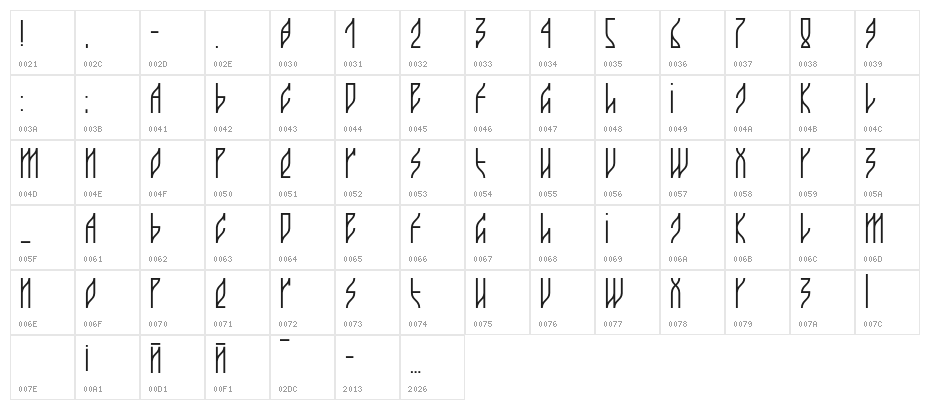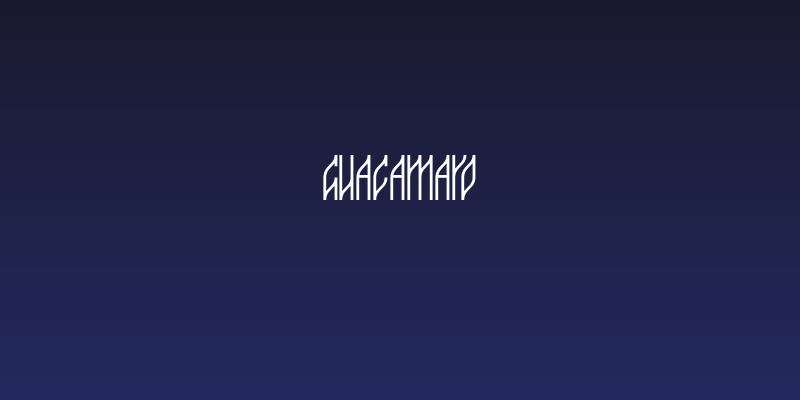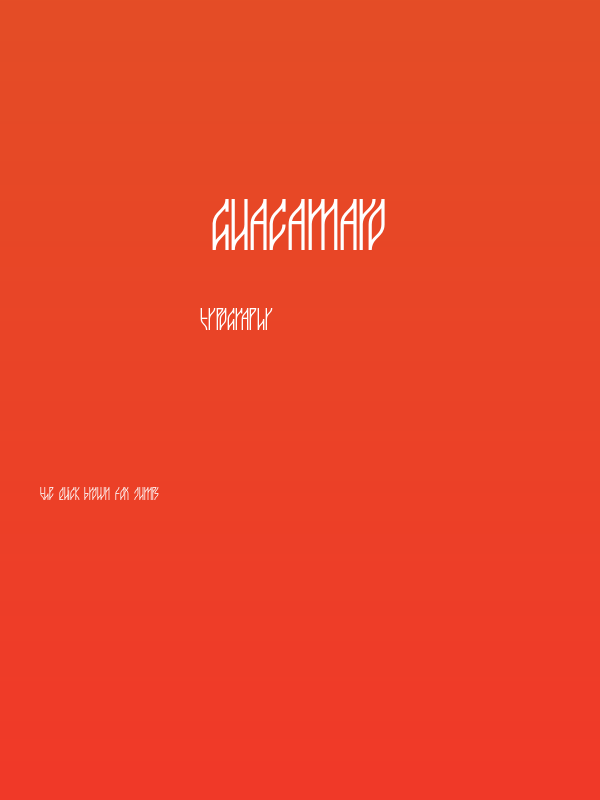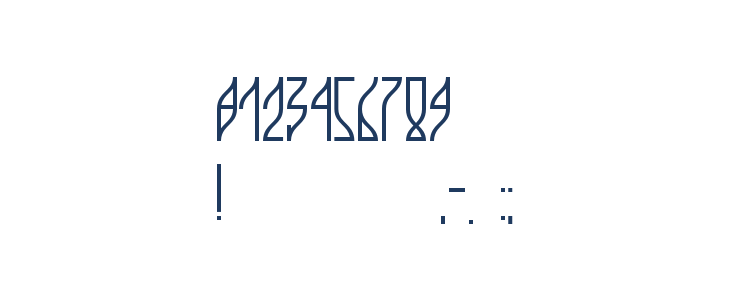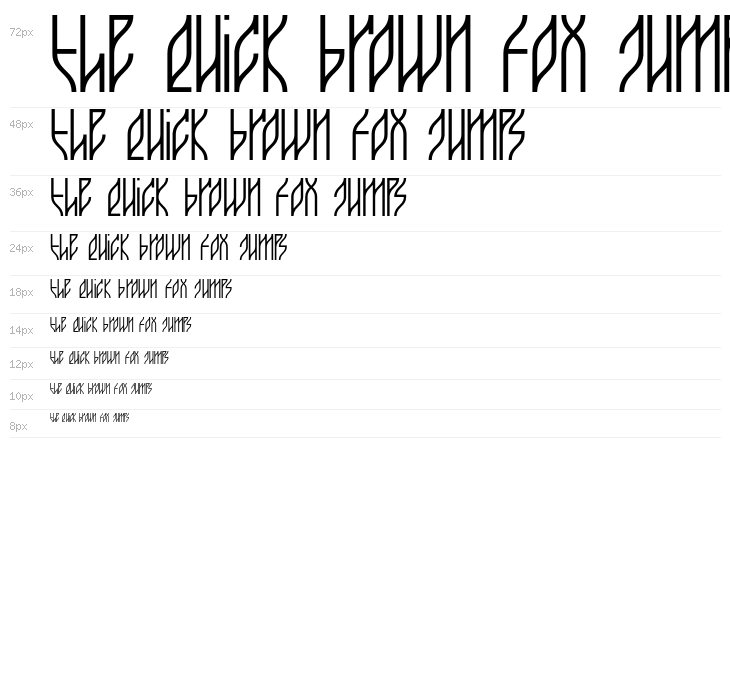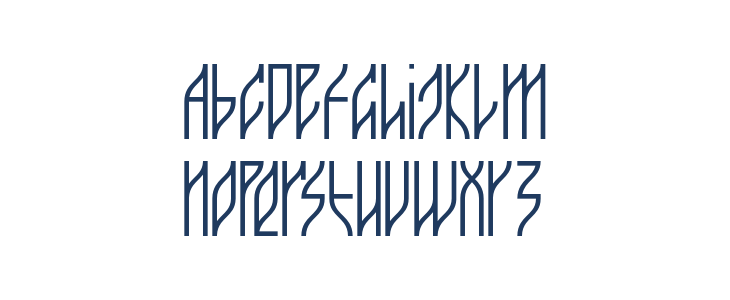
guacamayo Font
guacamayo Description
This font features a unique and modern geometric design with elongated, angular characters. The uppercase and lowercase letters share a consistent height, creating a uniform appearance. The strokes are thin and evenly weighted, contributing to a sleek and contemporary look. The numbers and special characters maintain the same stylistic elements, ensuring cohesion across all glyphs. This font's distinct style makes it stand out, with its sharp angles and clean lines offering a futuristic aesthetic.
| Proposed Projects | Ideal for branding, logos, posters, and any project seeking a futuristic or modern aesthetic. |